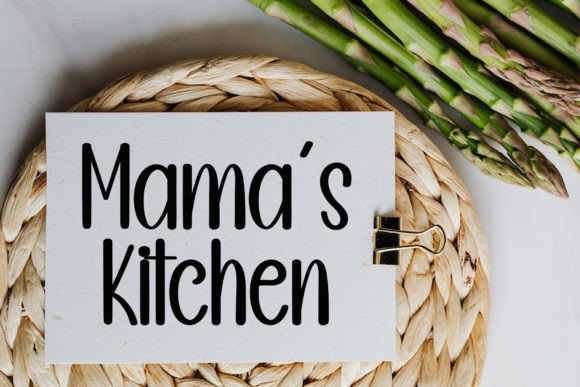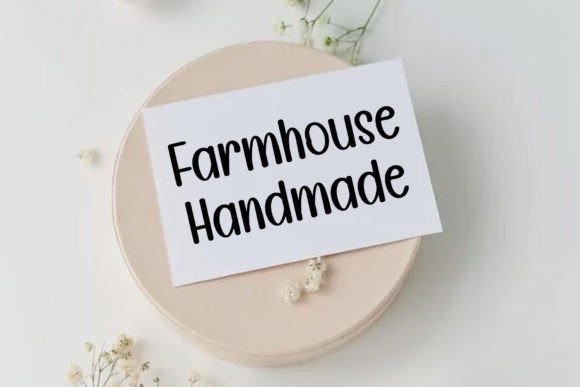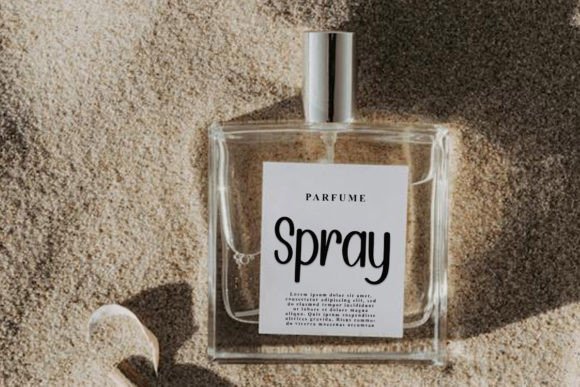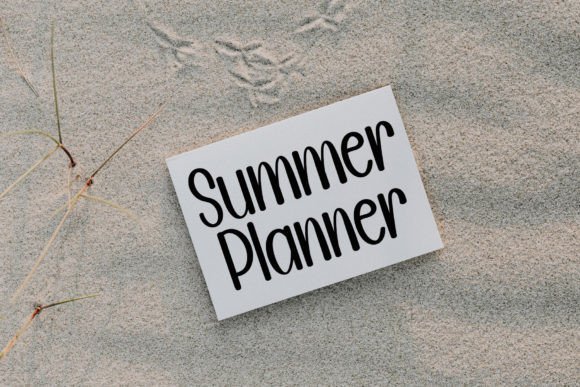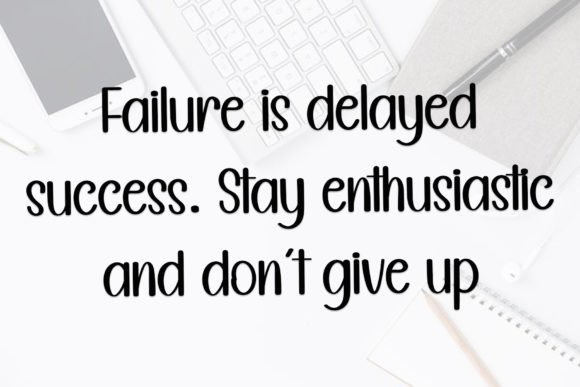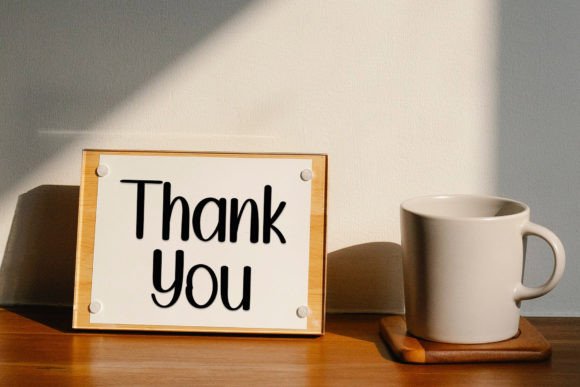
Have you ever found yourself sitting at your desk, surrounded by scraps of paper, paint, and a blank canvas, trying to bring your latest creative idea to life? You’re not alone. Many designers and artists face this moment of uncertainty, unsure of how to turn their vision into a tangible reality. That’s where the right tools come in – and for those who crave a touch of elegance in their designs, Almonds Font is the perfect solution.
Almonds Font is a beautifully crafted handwritten font that adds a personal touch to any project. Whether you’re creating calligraphy scripts for DIY projects or designing a social media campaign for Instagram, this font will help you bring your ideas to life. Its unique style and versatility make it a valuable asset for designers, allowing them to add a touch of sophistication to their work. With Almonds Font, the possibilities are endless, and your creativity will shine through like never before.
Almonds Font Key Features
- Unique Characteristics: Almonds Font features a unique blend of modern and traditional typography, with a distinctive rounded edge and elegant lines, making it suitable for a wide range of design applications.
- Font Style: Almonds Font is available in regular and italic styles, providing flexibility for designers to choose the perfect font style to match their design needs.
- Language Support: Almonds Font supports a wide range of languages, including Latin, Cyrillic, and Greek scripts, making it a versatile font for international design projects.
Designer Review: Almonds Font
Overall, I think Almonds Font is a solid choice for any project that needs a modern, minimalist aesthetic. Here are some of the things that I think work well:
- ✨ Great for body text: Almonds Font is clear and easy to read, even at smaller font sizes.
- ✨ Versatile: This font is suitable for a wide range of applications, from digital interfaces to print materials.
- ✨ Modern feel: Almonds Font has a sleek, contemporary look that’s perfect for projects that want to feel fresh and on-trend.
That being said, there are a few limitations to consider:
- ⚠️ Limited expression: While Almonds Font is great for conveying information, it may not be the best choice for projects that need a more emotive or expressive tone.
- ⚠️ May not stand out: Depending on the context, Almonds Font may blend in too much with the surrounding design, losing its impact.
Overall, I think Almonds Font is a reliable choice for projects that need a clean, modern look. While it may not be the best fit for every project, it’s definitely worth considering for those that want a timeless, versatile font.
Tips for Getting the Most Out of Almonds Font
Use Almonds Font for headings and titles to add a touch of elegance and sophistication to your designs.
Combine Almonds Font with other fonts to create a unique and visually appealing typography.
Experiment with different font sizes and colors to enhance the impact of your text.
Almonds Font is ideal for:
Creative and artistic projects
High-end branding and marketing materials